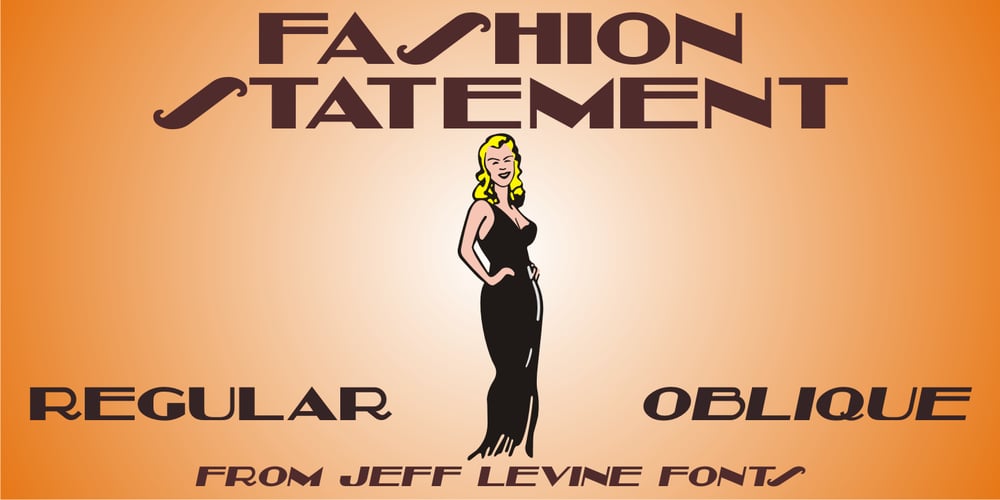
Fashion Statement JNL
Fashion Statement JNL font
Fashion Statement JNL Font Family was designed by Jeff Levine and published by Jeff Levine. Fashion Statement JNL contains 2 styles and family package options. An example of hand lettering from a vintage instructional book was the basis for Fashion Statement JNL; available in both regular and oblique versions. This extra-wide “thick and thin” design is perfect for replicating the classic signage and print work of the Art Deco era.